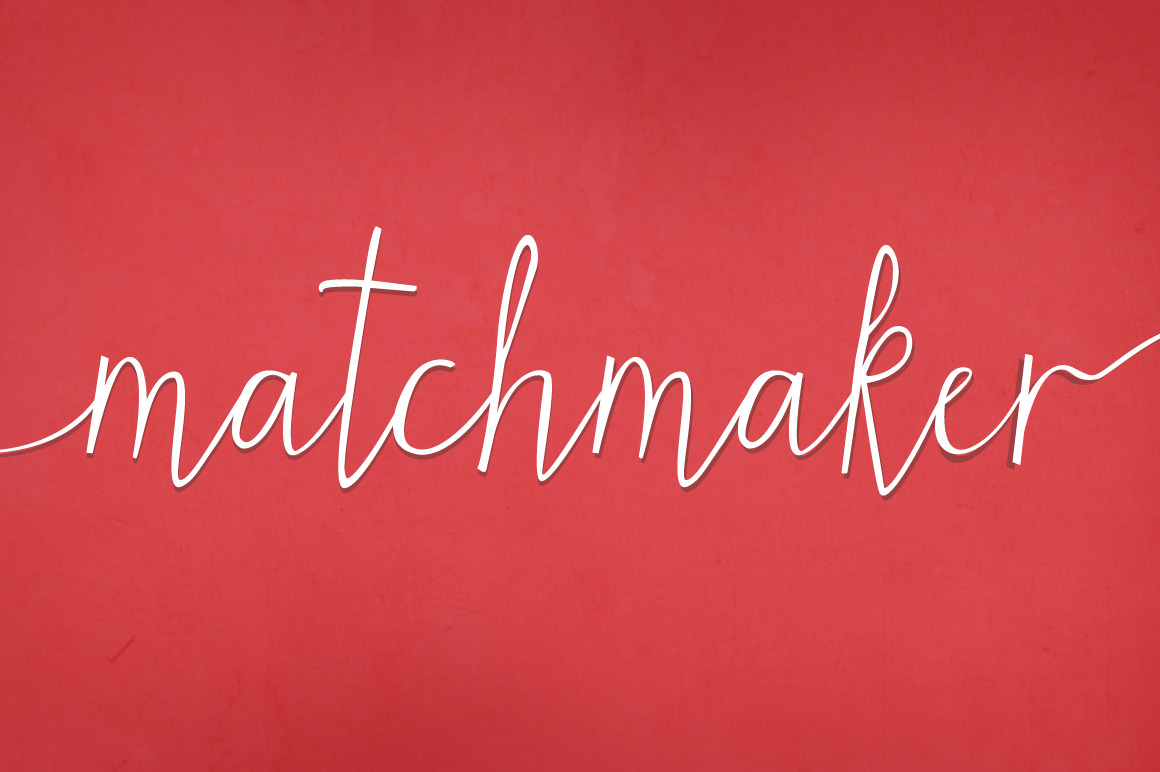
Matchmaker Font
Matchmaker, a modern calligraphy typeface, was inspired by the various works of modern day calligraphers. Its tall, quirky, and juxtaposed letterforms provide a deviation from traditional calligraphy-inspired typefaces. Matchmaker features smart contextual alternates and swashes that add to the front and beginnings of letters (try using + + + on the end and = = = on the beginning of lowercase letters to see the feature in action). This font works best in OpenType aware software so that you can take advantage of its many tricks and features. Comes as an .otf (OpenType font) file.
Chocked full of swashes, alternates, and ordinals, Matchmaker just might be the perfect match for your next project.